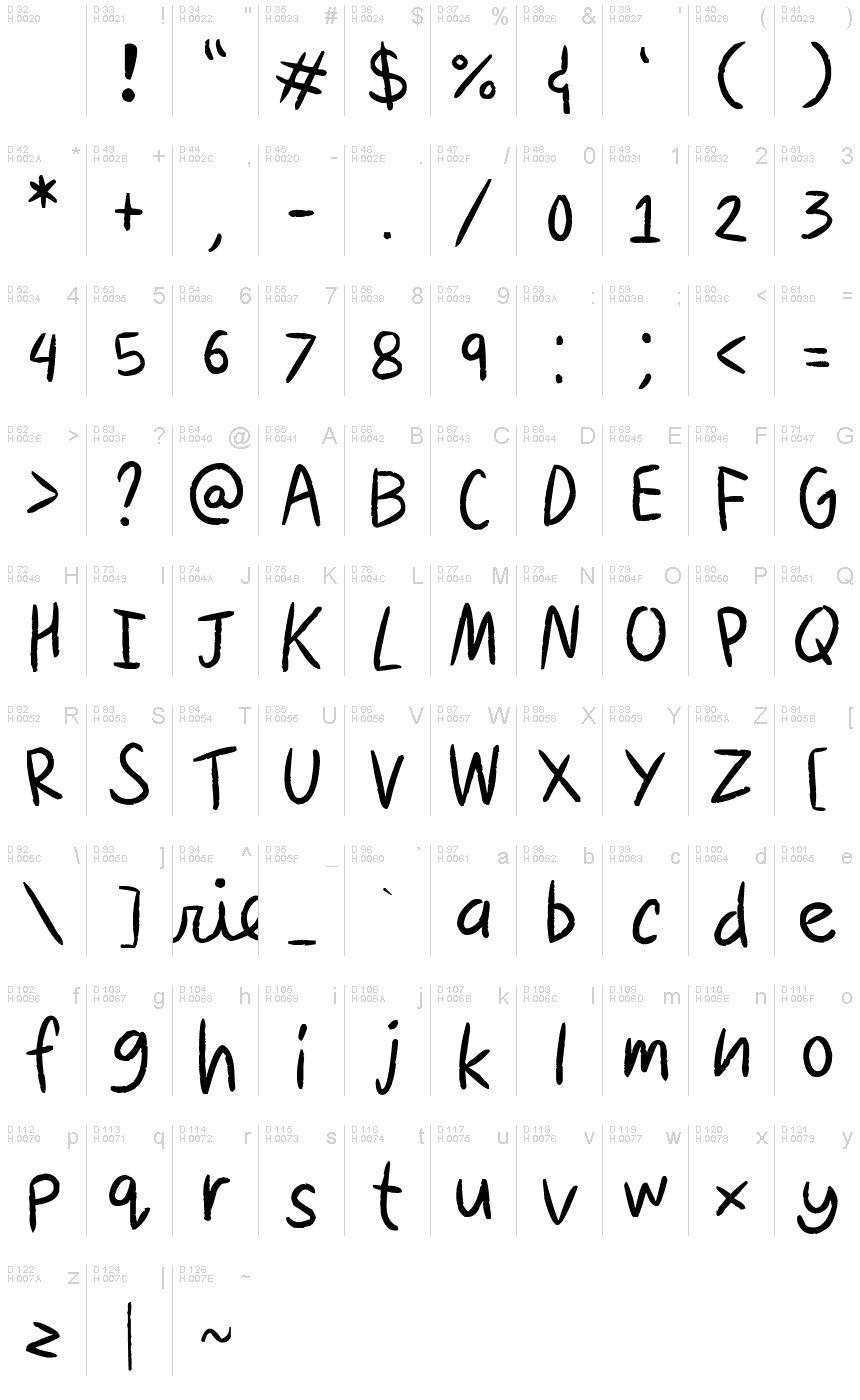
Marvin Sans
Looking for a font that's both playful and professional? Look no further than Marvin Sans, the latest creation from designer Iciclepops. With its semi-light weight and handwritten style, Marvin Sans is perfect for a variety of projects, including branding materials, social media graphics, and even print ads. Whether you're looking to add a touch of whimsy to your next marketing campaign or simply want a font that stands out from the crowd, Marvin Sans is sure to deliver. So why wait? Download this versatile typeface today and start creating!
Remade my other Marvin Sans font, this is for my upcoming webtoon comic: The Monsters are my Friends.